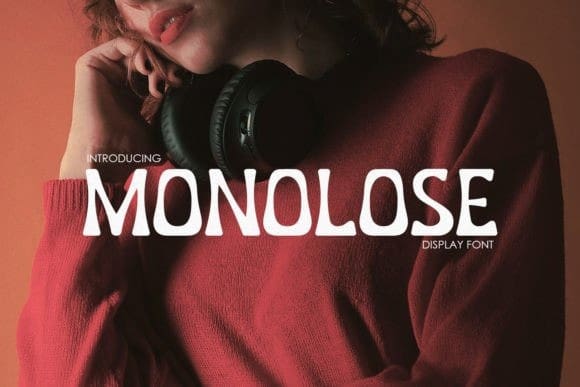
Monolose Display Font
Monolose Display font: has a modern look with a touch of free spirit! This font is perfect for branding, logos, initials, invitations, blogs, social media, and more!